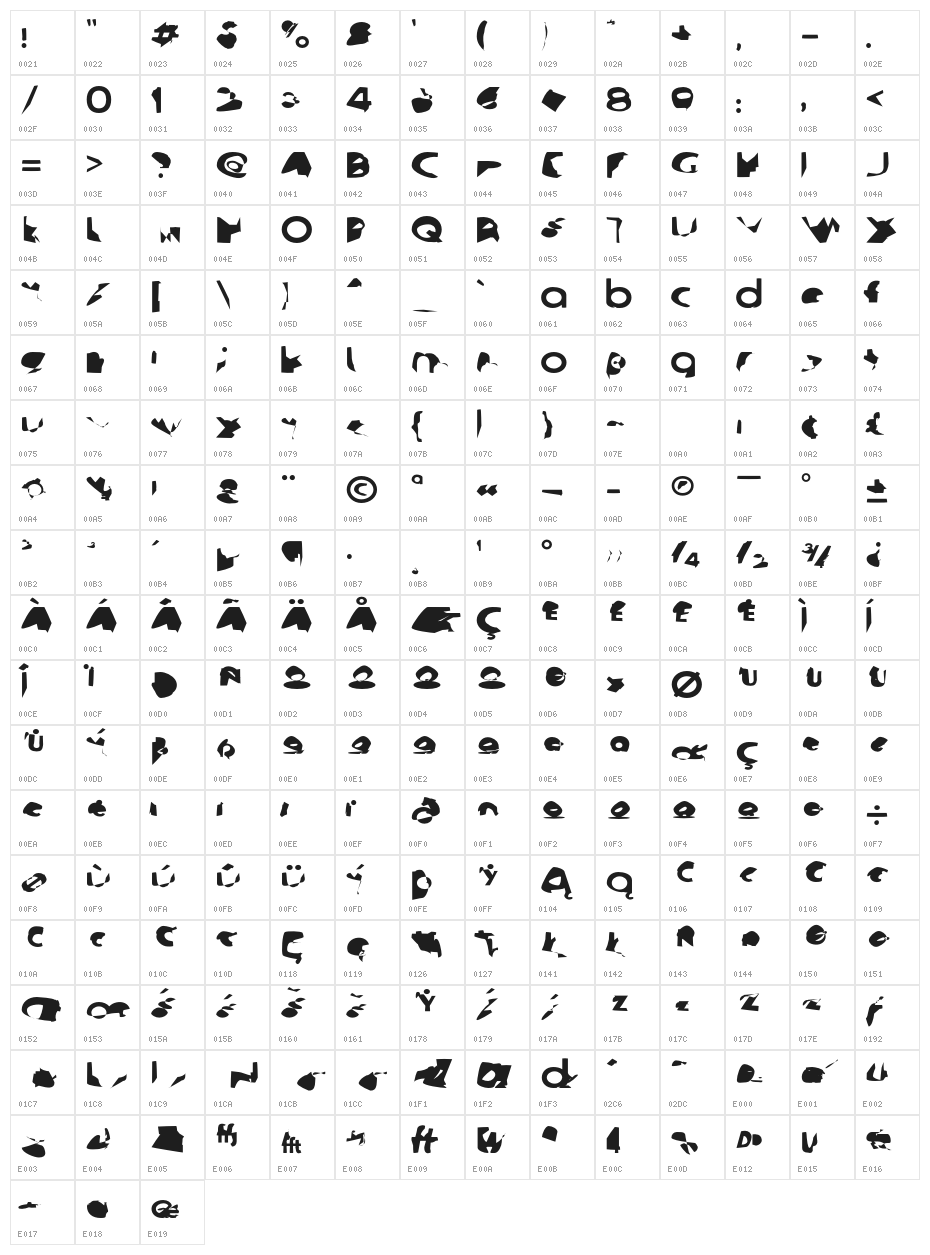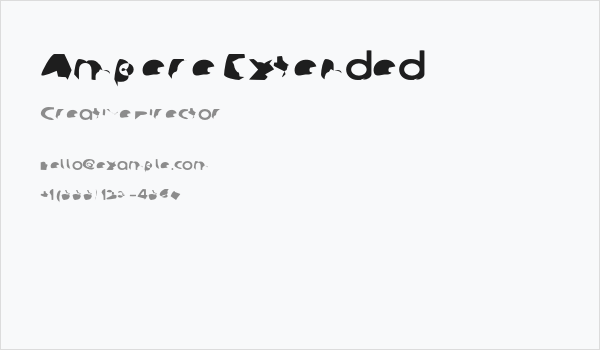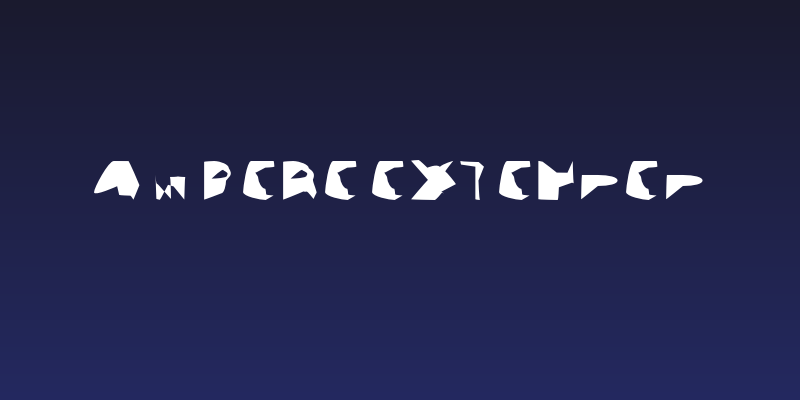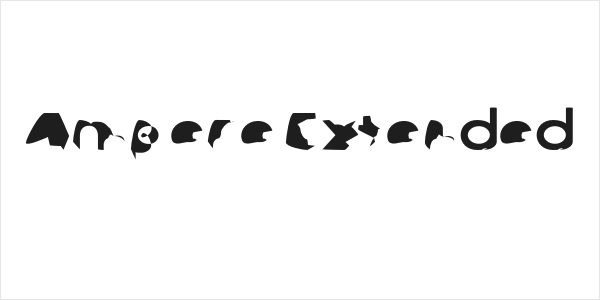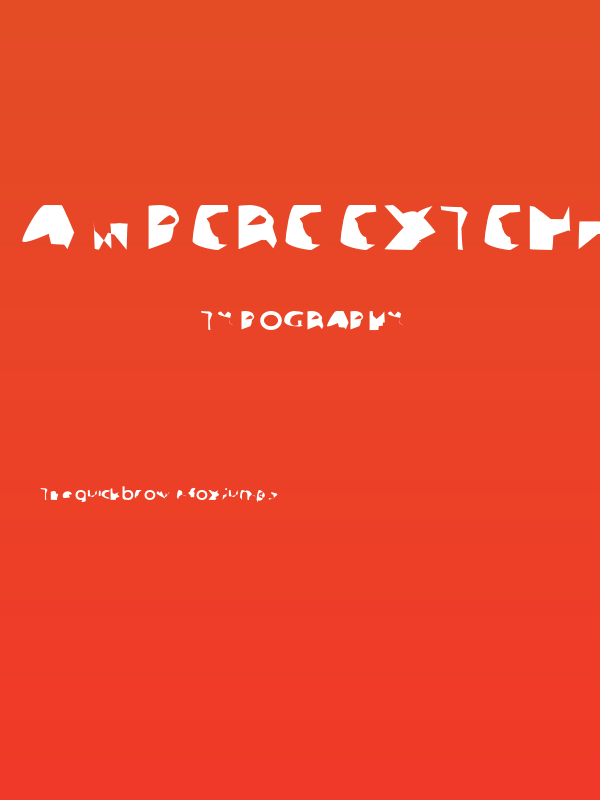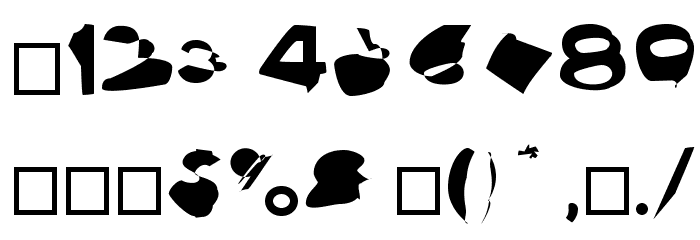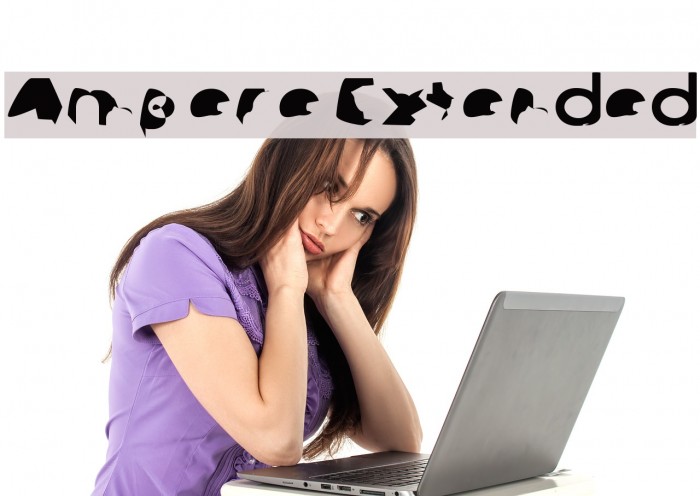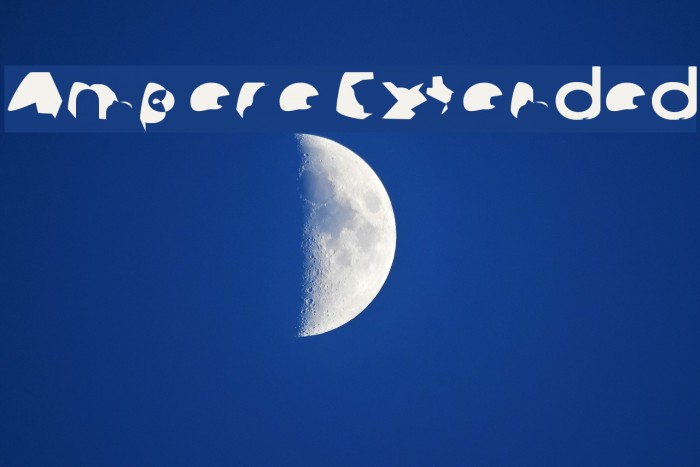
Ampere Extended Font
Ampere Extended Description
This font exhibits a highly abstract and fragmented design, characterized by its bold and jagged forms. Each character appears to be constructed from irregular, angular shapes, giving it a dynamic and chaotic appearance. The uppercase and lowercase letters, as well as the numbers and special characters, all share this distinctive style, making the font stand out with its unique visual impact. The overall aesthetic is modern and experimental, suitable for projects that require a strong visual statement.
| Overall Style | Modern, Experimental |
| Use Case | Headlines, Logos, Artistic displays |
| Proposed Projects | Ideal for avant-garde posters, album covers, and digital art projects that aim to capture attention with a bold and unconventional look. |